1. Futura | Fonts for Architects
The sans-serif font was created by Paul Renner in the 1920s. A favourite among contemporary graphic designers, this font bears linear letters with rounded edges providing a subtle visual impact. It can be specially used as titles, subtitles, and short text as seen in graphics-oriented folios. The font is vastly used to describe formal designs as it lends a clean and corporate look to the page layout.
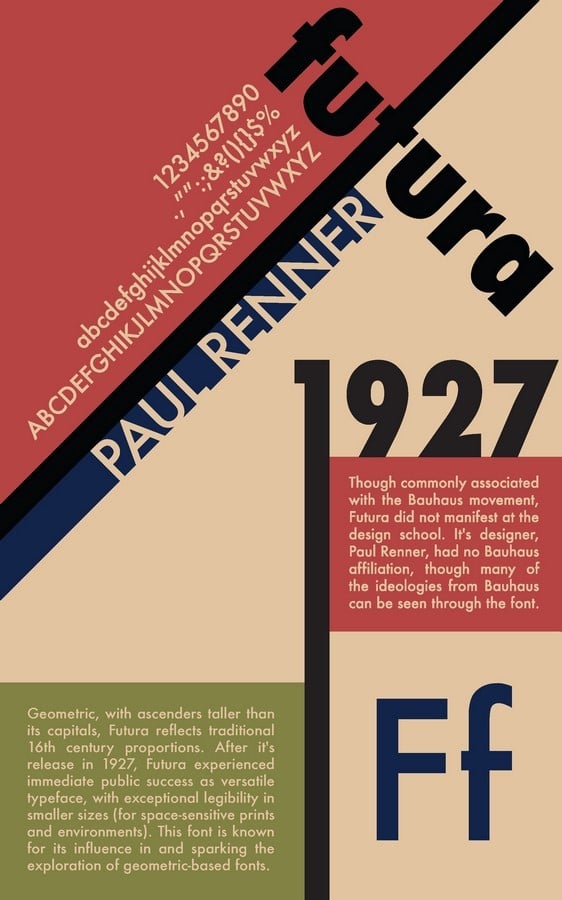
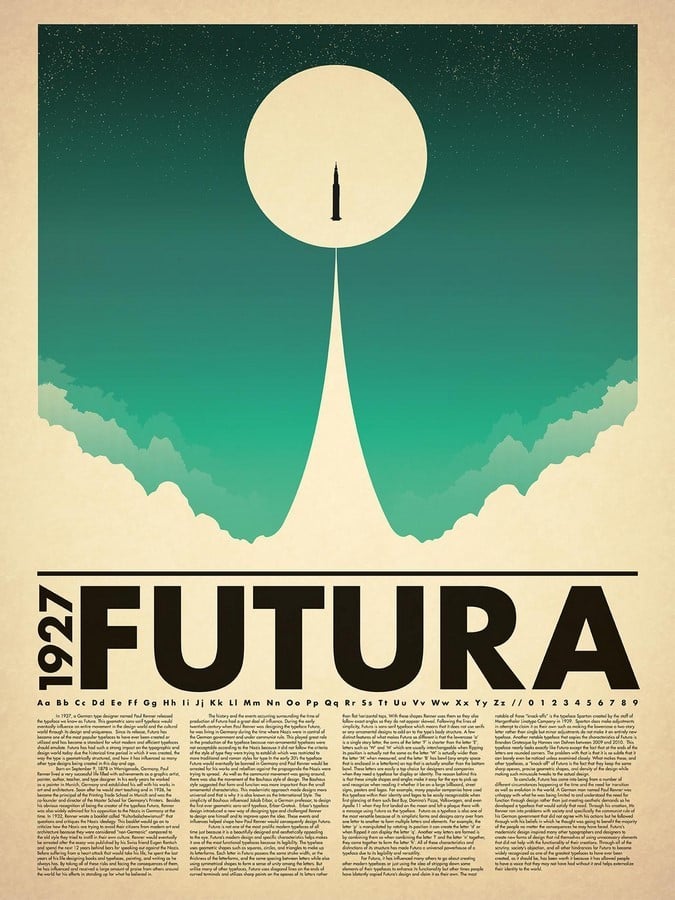
2. Helvetica | Architects Font
For portfolios intended to express a minimalistic and modern theme, Helvetica is the font to consider. The neo-grotesque design of the font can easily blend with commonly used fonts such as Lucida, Open Sans, or Georgia. Developed in the last decade by the Swiss designer duo Eduard Hoffmann and Max Miedinger, the font is professionally acclaimed for its concise and balanced design. It is extensively used in logo and web page designs.
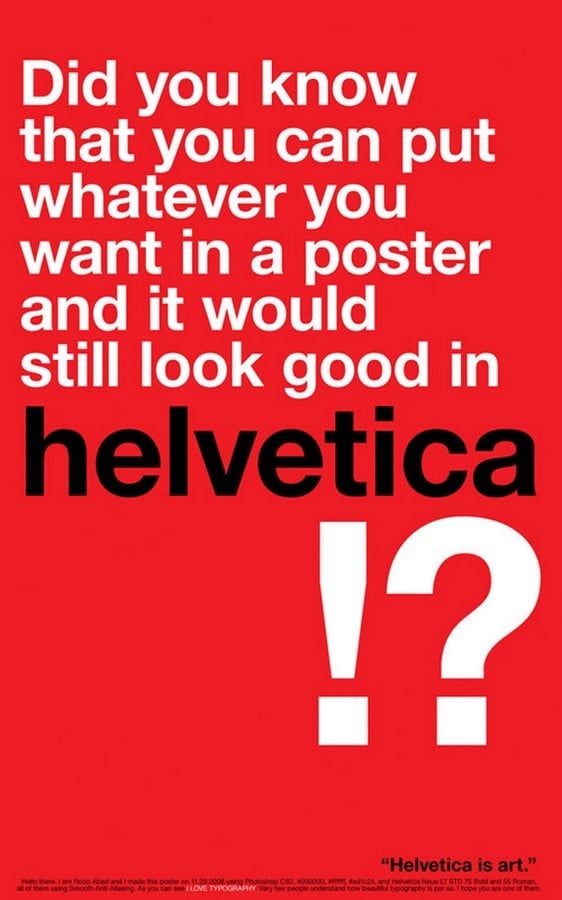
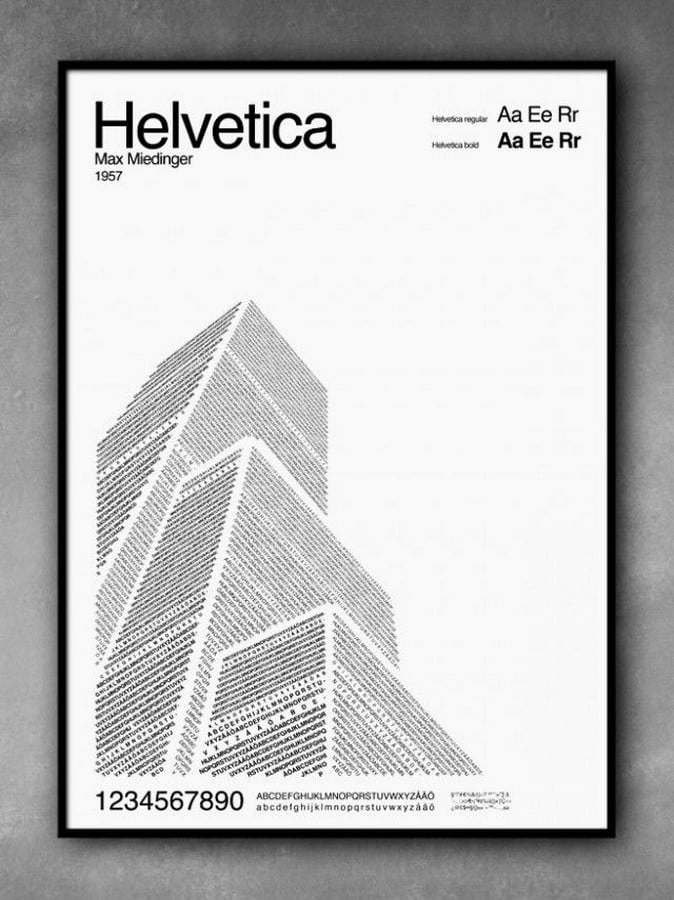
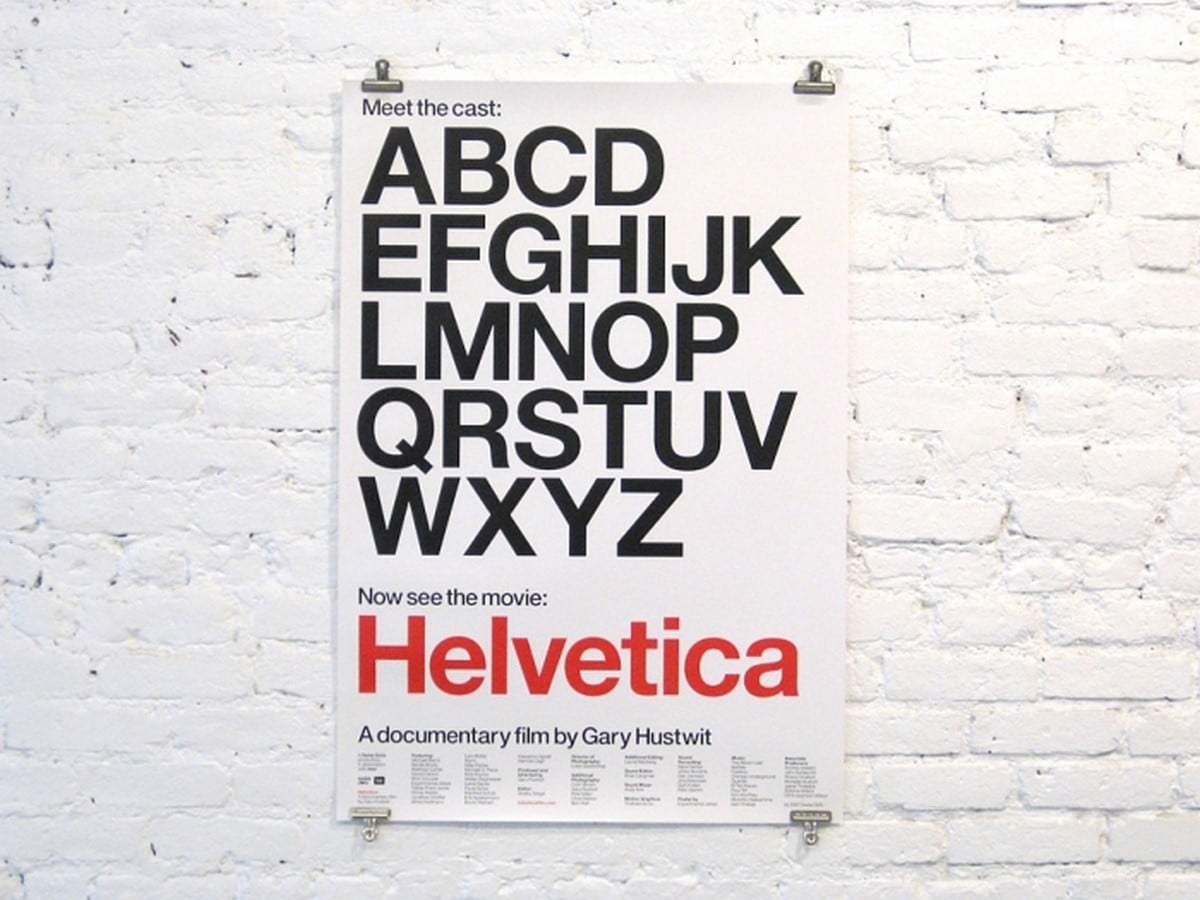
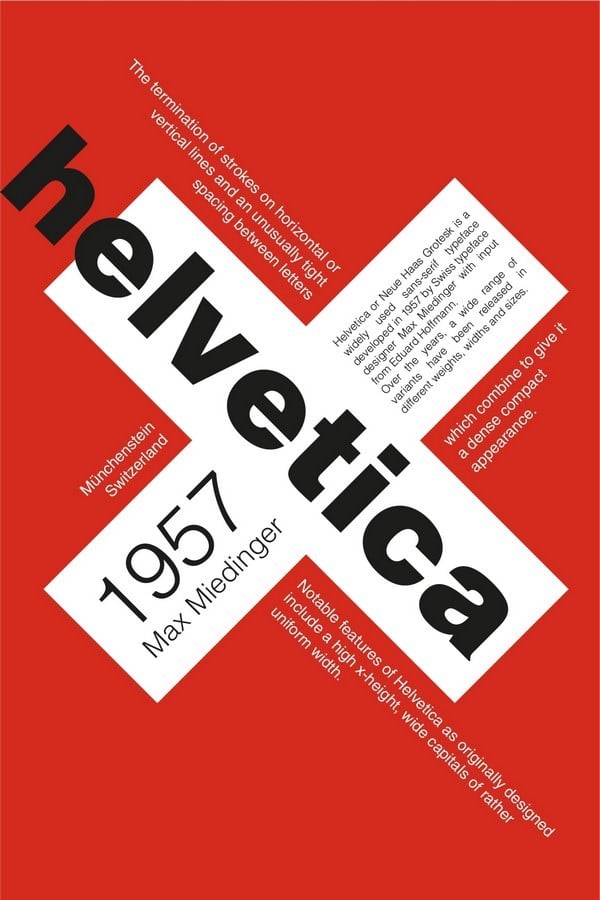
3. Architect – Geometric Typeface | Font Drawings
Abiding by the name, the Architect font is the best of both worlds – geometrically appealing and refreshingly creative. It creates impactful layouts while complying with multiple nature of content such as headers, logos, and subtexts.
4. Gotham | Fonts for Architects
Gotham is a geometric sans serif font conceived by designer Tobias Frere-Jones and Jesse Ragan in the early 21st century. The bold lines render a sense of integrity to the architecture portfolio. The same attribute makes it a popular choice for signage, logos, and business cards.
The typography can be readily used for paragraphs as well as headers. The font seems like a natural choice for Architectural work as it was originally inspired by the Architectural signage used in the mid-twentieth century.
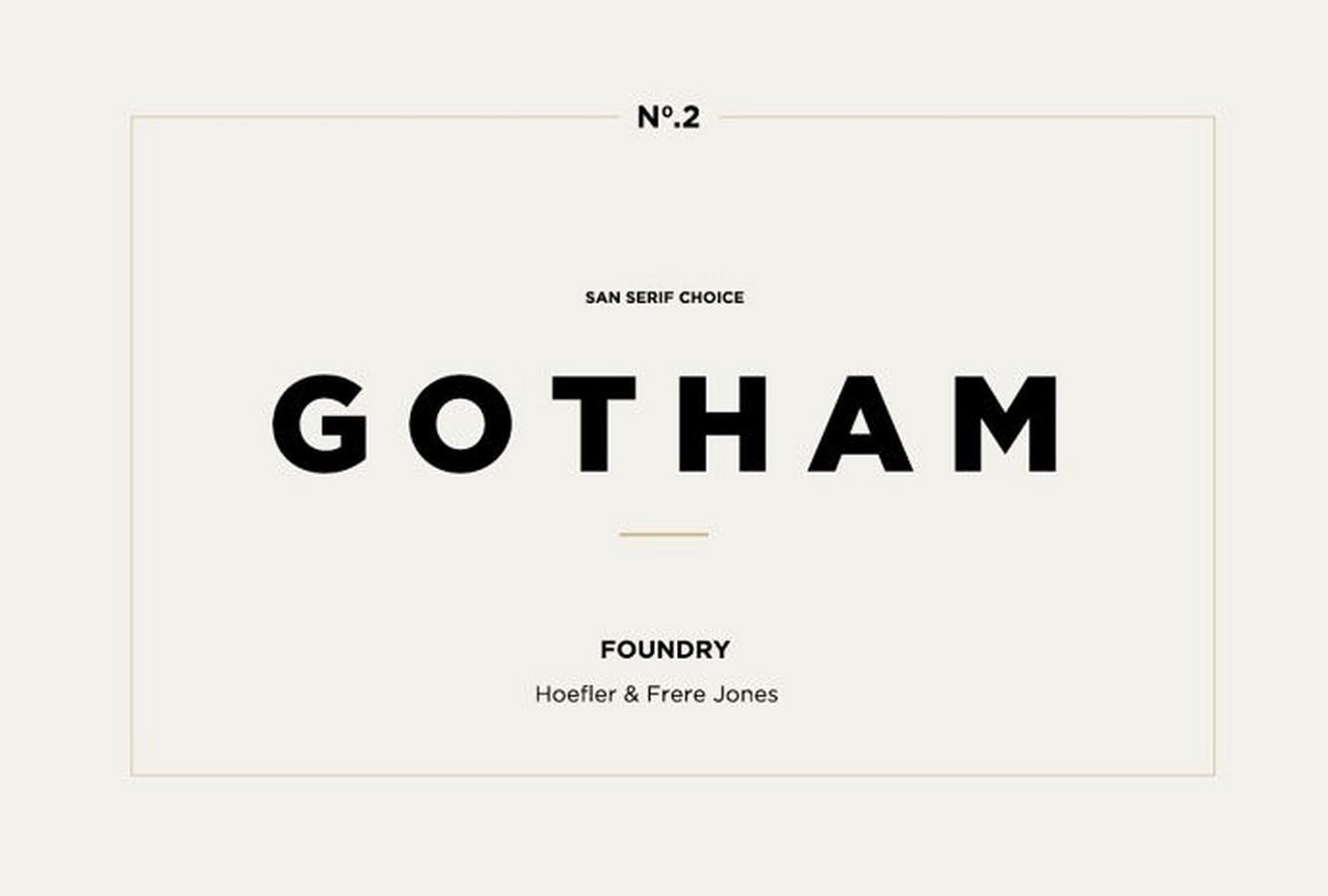
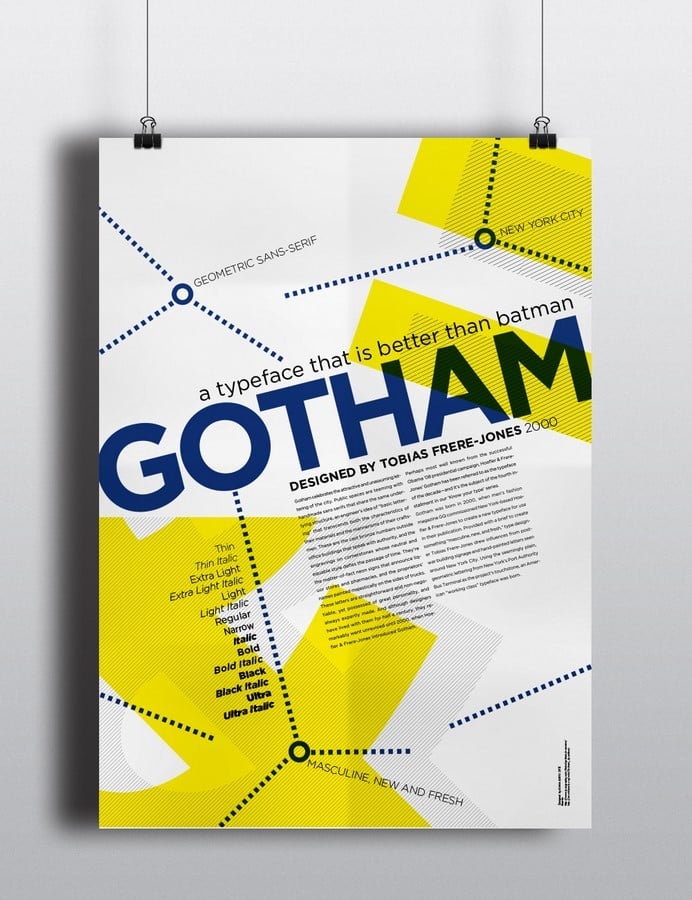
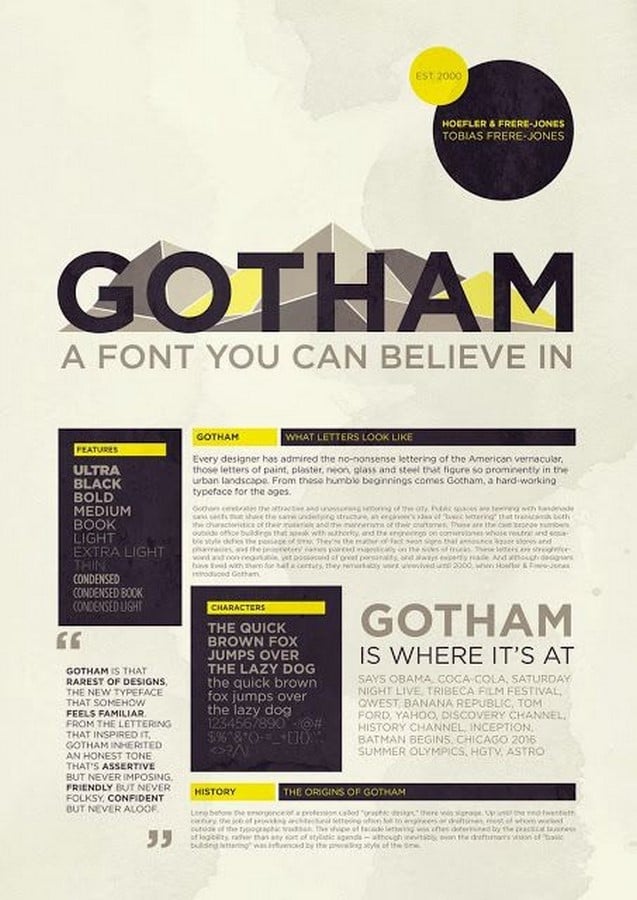
5. Consolas | Architecture Font
This simplistic and aesthetically pleasing font was shaped by Dutch designer, Lucas de Groot and is a preferred option for long explanatory text. The font belongs to the Clear Type Font Collection that builds upon Microsoft’s Clear Type Rendering technique. The breathable proportions of the monospaced inscription greatly increase the scope of tireless reading.
Especially for architecture portfolios intended towards architectural writing or journalism, this font comes in handy.
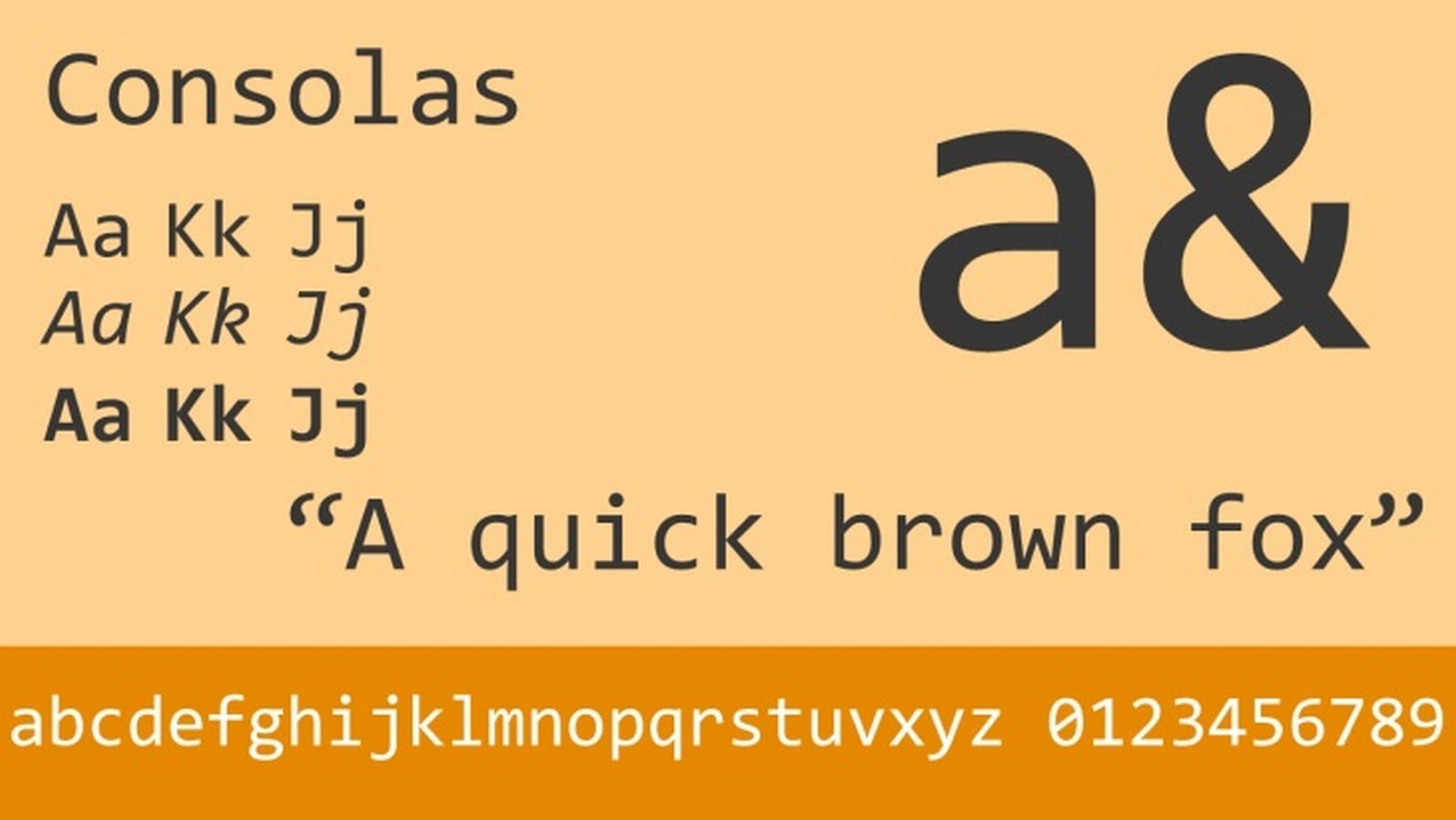
6. Bauhaus | Architect Font
Taking us back to the History of Architecture studios, the Bauhaus font was fashioned in 1925 by former Bauhaus student, Herbert Bayer. This typography lends an ephemeral stance to the portfolio composition. The geometrical Roman base and monotone stroke weight makes it a widely used font as influential highlighters. It is universally available in separate upper and lowercase fonts.
7. Aikido | Architects Font
Standing out from the rest of the list, the Aikido appeals to those looking for an out-of-the-box font to complement their edgy and unconventional portfolio. An output by UI / UX designer, Alexandru Molnar, the font can be beautifully amalgamated with sketches or as part of the cover page design.
8. Brandon Grotesque
Brandon Grotesque designed by Hannes von Döhren builds upon the geometrical, sans-serif style from the early nineties. The lower width to height ratio of the font provides a crisp yet elegant typeface for the likes of architectural minds.
The font can be seen to be used in corporate layouts such as Comedy Central, portfolio of Twitter designer Sean Thompson and others.
9. Metrica Font | Architecture Font
Another intriguing design for those looking to create portfolios with thematic and unique typography. This font developed by Oliver James is a play of lines to create striking sharp, geometry, and nifty edges. To gather attention towards project heading or concept keywords, the font can come in handy. It is available in multiple weights with both uppercase and lowercase letters.
10. Lora | Fonts for Architects
With intrinsic calligraphic values, Lora is a contemporary font best suited for paragraphs and text with visual graphics. The well-balanced appearance of the font can be effortlessly incorporated in portfolios with a storytelling format as well as those exhibiting art essays.